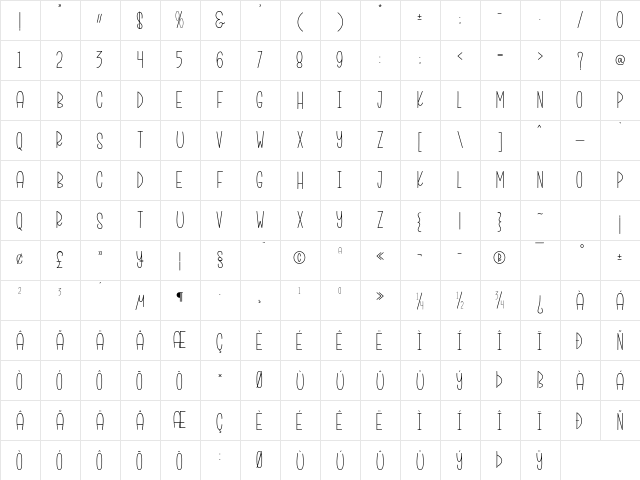
Summer Flowers Regular
Design Context for Summer Flowers Typeface
Summer Flowers is a composed and adaptable typeface that performs quietly and consistently across a wide range of design contexts.